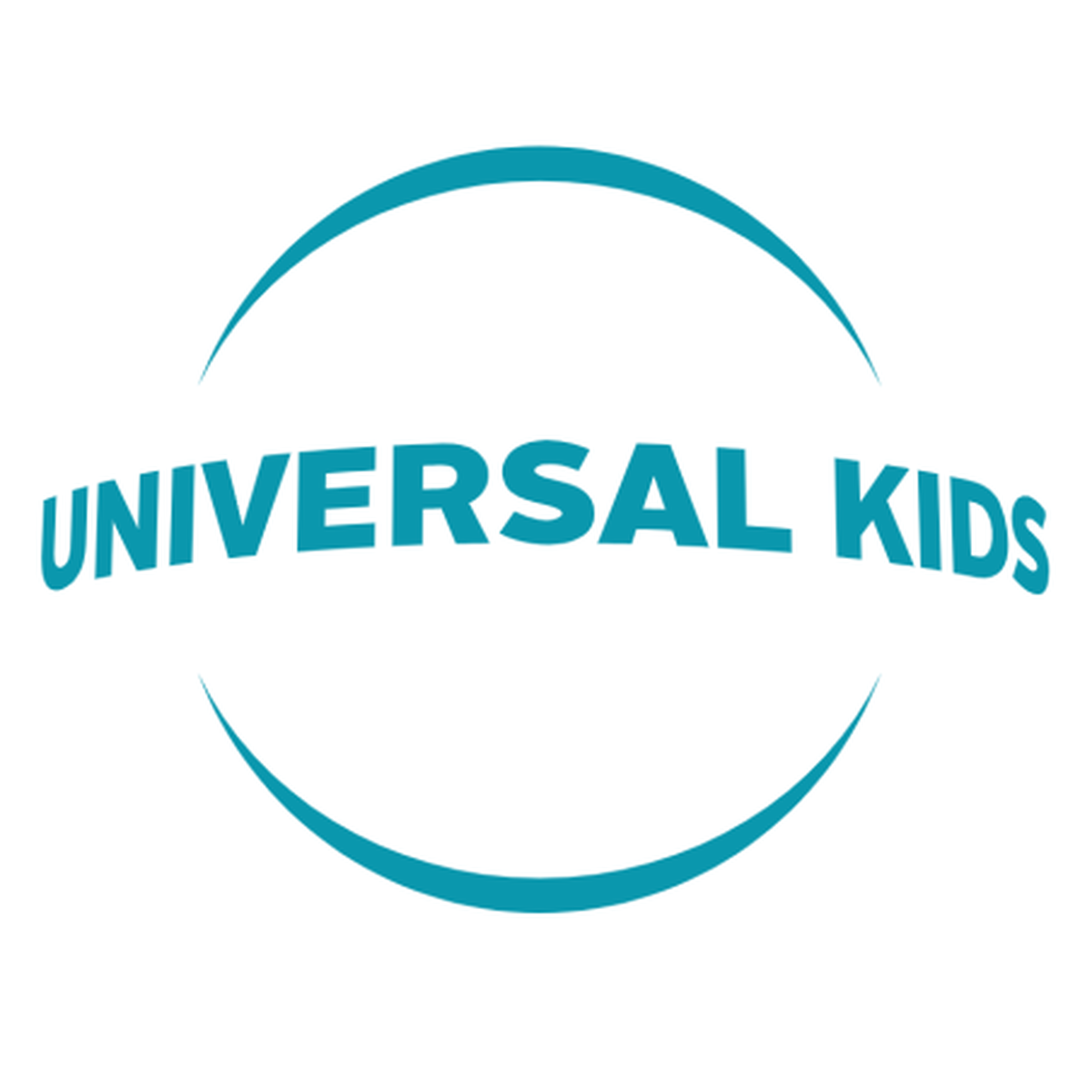
About Universal Kids
Universal Kids is the NBCUniversal preschool cable network that launched in 2017 as a rebrand of Sprout. The channel's identity centres on the lower-case wordmark that runs across its on-air bumpers, app icon, and merchandise — set in a soft, friendly humanist sans whose round counters and confident weight reinforce the channel's playful preschool tone.
Owned by NBCUniversal and aimed squarely at the under-six audience, the rebrand replaced the bright-green Sprout identity with a quieter mark that scales cleanly from app icons to broadcast bumpers. The wordmark shows up across the channel's programming wraps for shows like Where's Waldo? and Top Chef Junior, in subscription marketing, and on retail tie-ins — anywhere the brand needs to read as both gentle and grown-up enough for the parents holding the remote.
What font does Universal Kids use?
Universal Kids uses Alright Sans Black, designed by Jackson Cavanaugh at Okay Type (2010). It is a commercial humanist sans with a friendly, geometric character.
Where this style works
This style works hard for kids' brands, edutech apps, lifestyle wordmarks, podcast covers, and any identity that needs warmth without looking cute. The geometric humanist character keeps it modern and screen-friendly at small sizes, while the weight gives logos and headers real presence. Designers also reach for it in product packaging, mobile UI, and marketing collateral aimed at family audiences.
What fonts are similar to the Universal Kids font?
Other friendly geometric humanist sans-serifs in the same family of look include Brandon Grotesque, Gotham Rounded, Avenir Next, FF Mark, and Proxima Nova. Most of those are also commercial releases; the Lipi lookalike on this page is the fastest route to a similar feel with commercial rights attached.